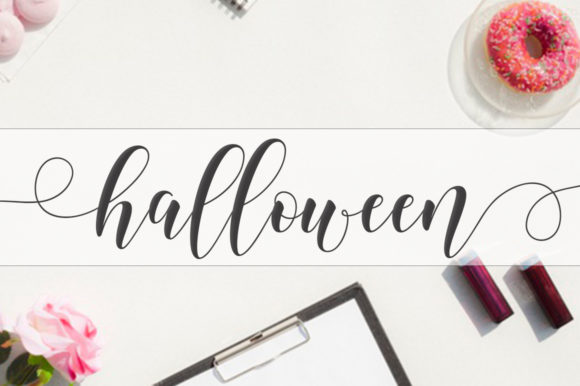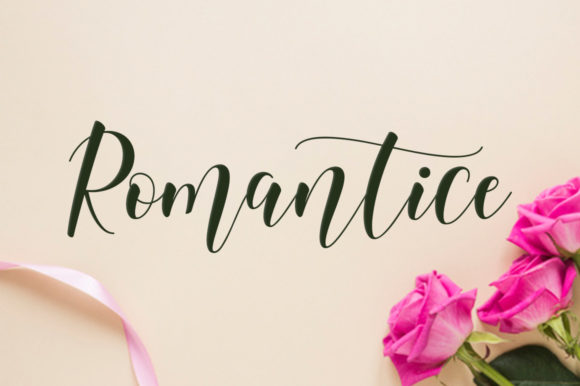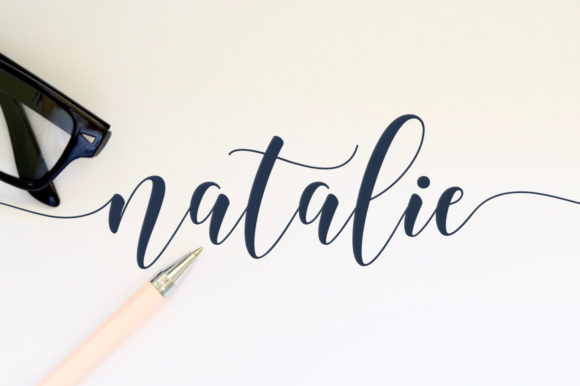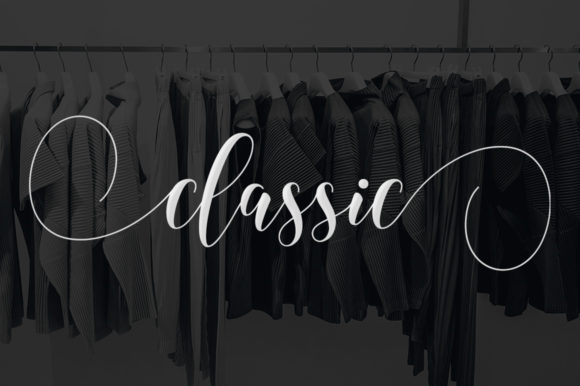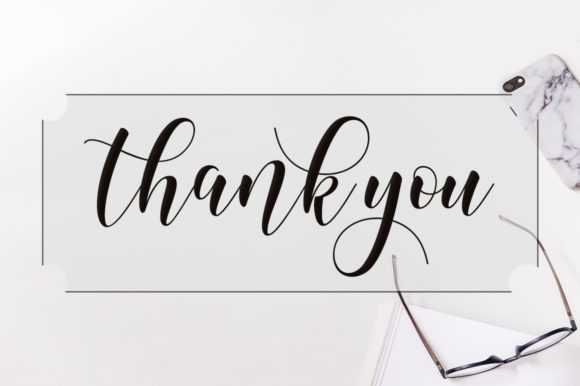
Introducing Angelica Font: Elevate Your Designs with Modern Script Elegance
Are you a designer or crafter looking for a font that combines classic calligraphy with a modern twist? Look no further than Angelica Font. This lovely modern script font is designed to turn any design idea into a true piece of art. With its elegant and flowing lines, Angelica Font is perfect for a wide range of design projects, from wedding invitations and branding materials to digital art and craft projects.
The Inspiration Behind Angelica Font
Angelica Font is inspired by the traditional calligraphy of the past, but with a modern and fresh approach. The font’s creator aimed to capture the essence of classic calligraphy and infuse it with a contemporary feel, making it perfect for modern designs. The result is a font that is both timeless and trendy, elegant and sophisticated.
Key Features of Angelica Font
- Modern Script Style: Angelica Font features a modern script style that is perfect for designs that require a touch of elegance and sophistication.
- Elegant and Flowing Lines: The font’s elegant and flowing lines make it perfect for creating beautiful and eye-catching designs.
- Classic Calligraphy Inspiration: Angelica Font is inspired by traditional calligraphy, giving it a timeless and classic feel.
- Highly Versatile: The font is highly versatile and can be used for a wide range of design projects, from print to digital.
Uses for Angelica Font
Angelica Font is perfect for a wide range of design projects, including:
- Wedding Invitations: Create beautiful and elegant wedding invitations that set the tone for the big day.
- Branding Materials: Use Angelica Font to create stunning branding materials, such as logos, business cards, and letterheads.
- Digital Art: Add a touch of elegance and sophistication to your digital art projects, such as illustrations and graphics.
- Craft Projects: Use Angelica Font to create beautiful and unique craft projects, such as handmade cards and scrapbooking.
Why Choose Angelica Font?
There are many reasons why designers and crafters choose Angelica Font for their projects. Here are a few:
- Unique and Elegant: Angelica Font is a unique and elegant font that will add a touch of sophistication to any design project.
- High-Quality: The font is of high quality, with clean and crisp lines that will look great in any design.
Tips for Using Angelica Font
Here are a few tips for using Angelica Font in your design projects:
- Use it as a Headline Font: Angelica Font is perfect for use as a headline font, where its elegant and flowing lines can really shine.
- Pair it with a Sans-Serif Font: Pair Angelica Font with a sans-serif font, such as Arial or Helvetica, to create a beautiful and contrasting design.
| Font Name | Angelica Font |
| Author | Greentype |
Angelica Font is a beautiful and elegant modern script font that is perfect for designers and crafters looking to add a touch of sophistication to their projects. With its classic calligraphy inspiration and modern twist, Angelica Font is highly versatile and can be used for a wide range of design projects. Whether you’re creating wedding invitations, branding materials, digital art, or craft projects, Angelica Font is a great choice. So why not give it a try and see the difference it can make in your designs?